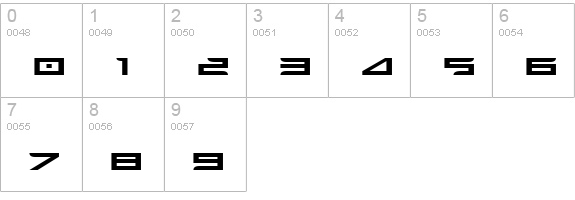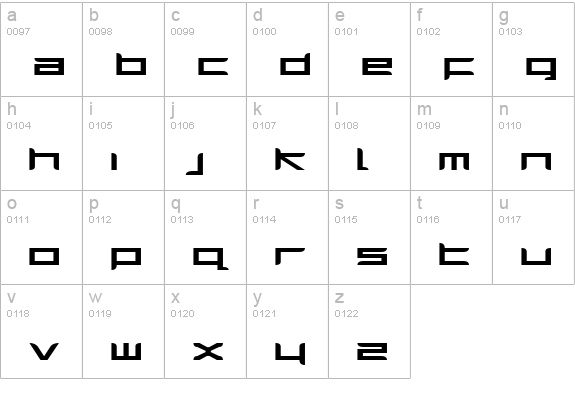
Harrier Expanded is a distinctive, extended-width variant in the Harrier typeface family \xE2\x80\x94 well suited to design and typography projects.
Introducing Harrier Expanded, a captivating and versatile typeface that will take your design projects to new heights. With its sleek and modern appearance, this font is perfect for a wide range of applications, from professional branding to eye-catching headlines. Harrier Expanded is a free font that offers a unique blend of elegance and legibility. Its expanded form provides extra impact, making it ideal for attention-grabbing designs. Whether you're creating a bold logo, a striking poster, or a captivating website, Harrier Expanded will make a lasting impression on your audience. This font features clean and crisp lines, ensuring readability even at smaller sizes. Its well-balanced proportions and carefully crafted letterforms make it a joy to work with, allowing you to effortlessly convey your message with confidence and clarity. What sets Harrier Expanded apart is its versatility. It seamlessly adapts to various design styles, effortlessly complementing both minimalist and elaborate compositions. Its wide range of weights and styles allow you to experiment and find the perfect combination for your project. And the best part? Harrier Expanded is freely available to download at FontsMarket.com. This means that you can instantly enhance your design arsenal without breaking the bank. Whether you're a professional designer or a passionate enthusiast, this font offers a world of possibilities at your fingertips. So, why wait? Unleash your creativity and elevate your designs with Harrier Expanded. Download it for free today at FontsMarket.com and discover the power of this remarkable typeface.